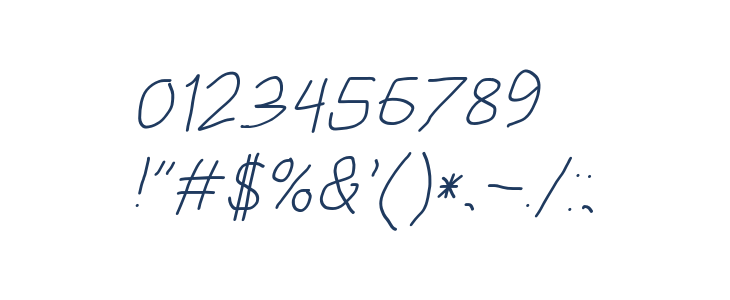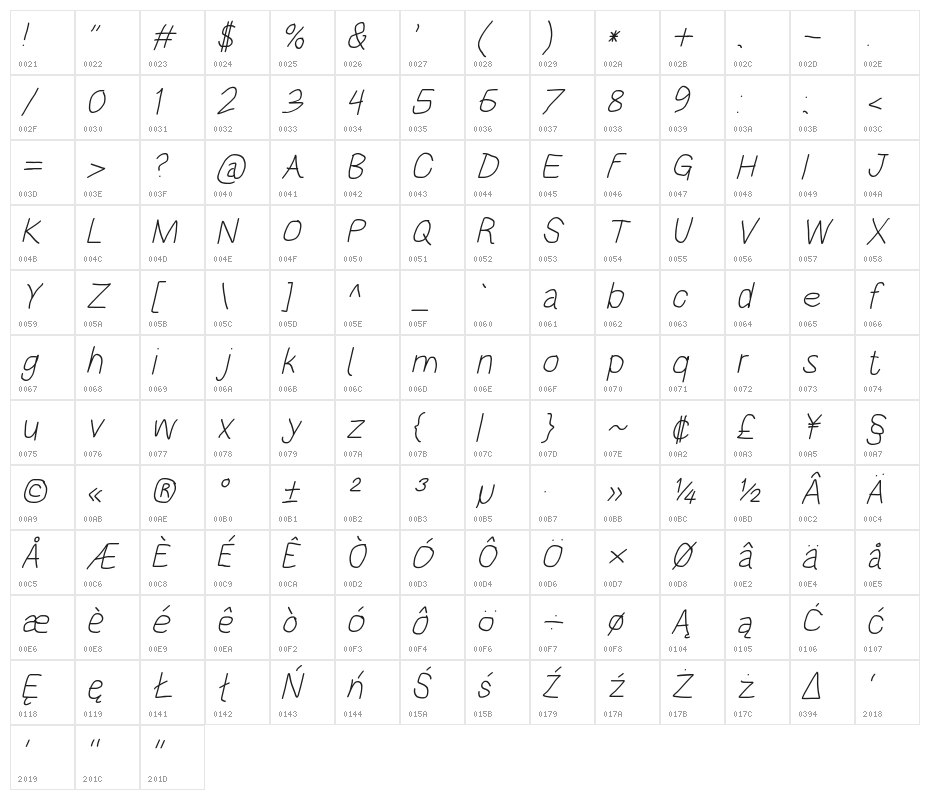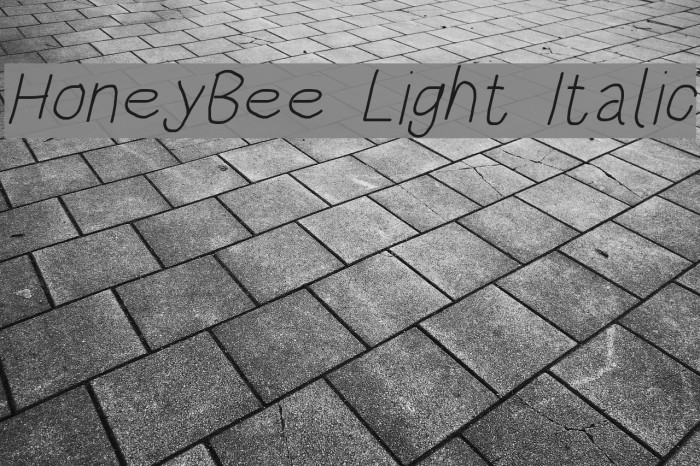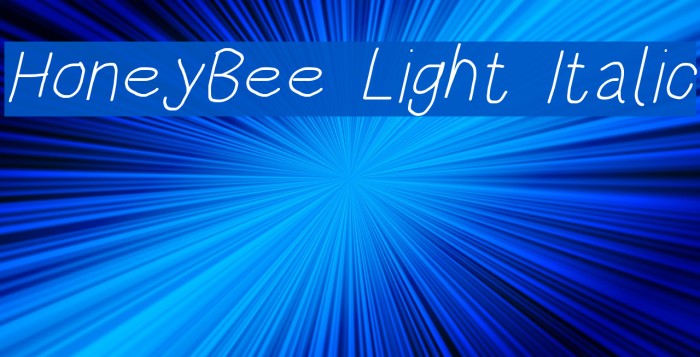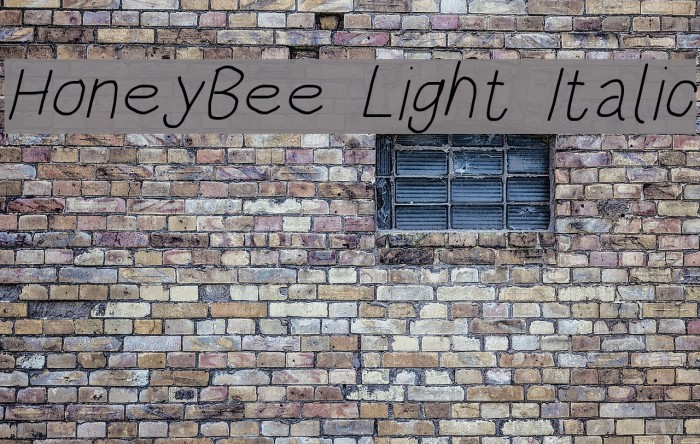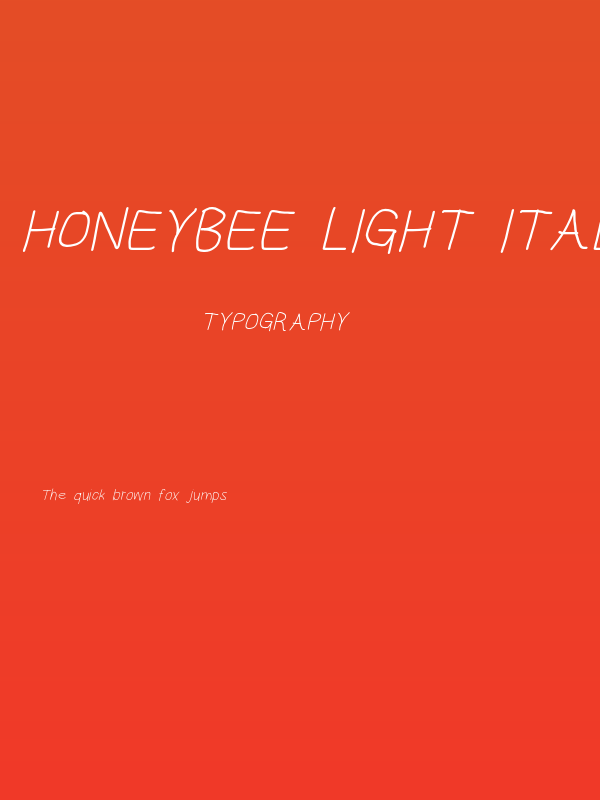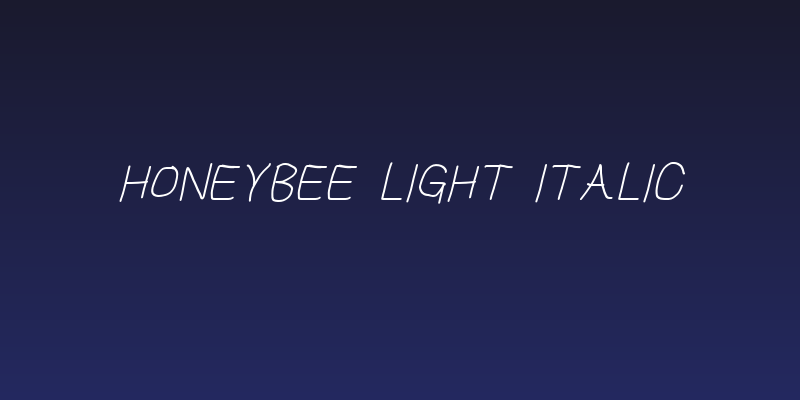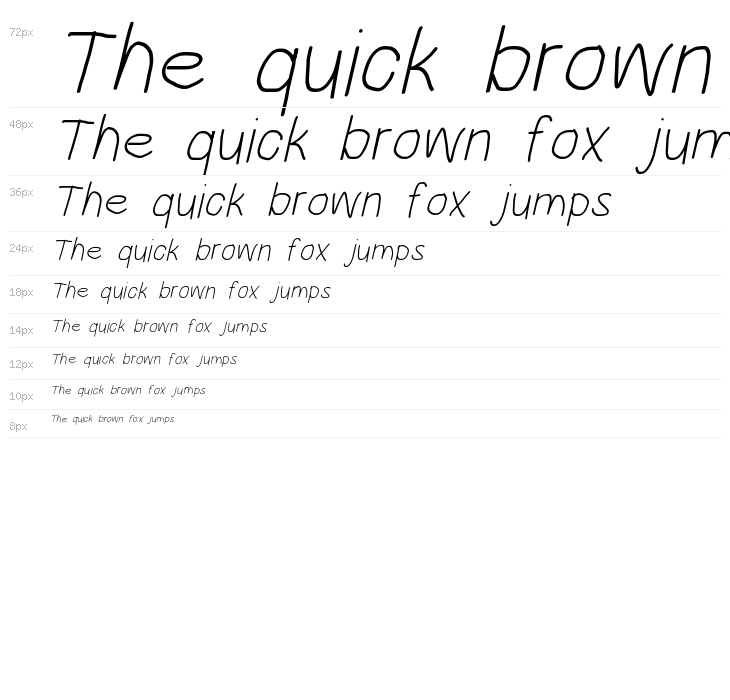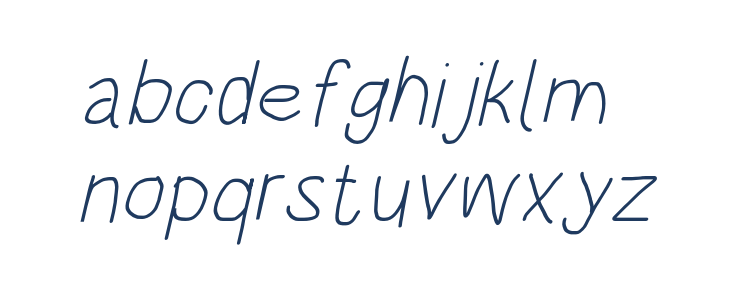
HoneyBee Light Italic Font
HoneyBee Light Italic Description
This font features a light and airy design with a handwritten style that exudes a casual and friendly vibe. The characters are slightly slanted, giving it an italic appearance, which adds a sense of motion and fluidity. The strokes are thin and consistent, contributing to its light weight. The overall look is clean and modern, with a touch of playfulness. The spacing between characters is normal, ensuring readability while maintaining its elegant flow. This font is versatile, suitable for projects that require a personal touch or a relaxed aesthetic.
| Use Case | Logos, Headlines, Casual Text |
| Proposed Projects | Ideal for personal invitations, greeting cards, casual branding, and social media graphics. |